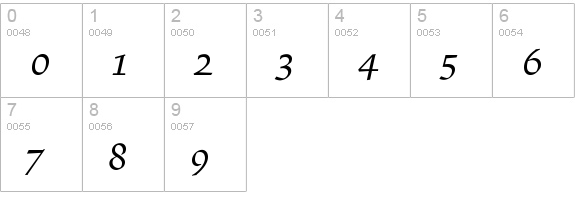
Alisal Std Italic Font Details
Alisal Std Italic is a distinctive, italic variant in the Alisal typeface family \xE2\x80\x94 well suited to design and typography projects.
Introducing Alisal Std Italic, a modern and elegant typeface that exudes sophistication and style. This versatile font is perfect for adding a touch of class to any project, whether it be for branding, marketing materials, invitations, or editorial design. With its sleek and flowing curves, Alisal Std Italic brings a sense of sophistication and refinement to any text. The italicized style adds a touch of flair and elegance, making it perfect for creating a sense of luxury and exclusivity. Best of all, Alisal Std Italic is available for free download at FontsMarket.com. This means that you can easily access this stunning font and incorporate it into your designs without any cost. Don't miss out on this opportunity to elevate your projects with the timeless beauty of Alisal Std Italic. Download it today and let your creativity soar!